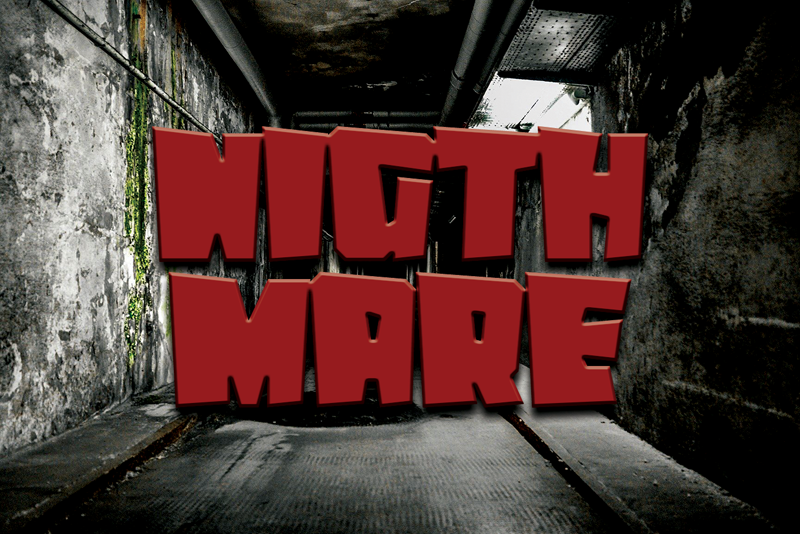
Preview and download Night Mare Font. Created by Erik Luluk in Fancy Cartoon styles with Free for personal use license.
Night Mare is a chunky and playful display font, perfectly designed to take your projects to the highest levels! It is perfectly suitable for book titles, movies, magazines, apparel designs, and more! Attention : Night Mare handwriting Font is prohibited to use this font for commercial purposes or for profit without the permission of the author/admin, without being known to use this font without permission, will be subject to sanctions 5x the specified price. This font is used only for demos (Demo license) If you want to use this font for commercial use please contact email: erikluluk0@gmail.com or click the link below: https://www.creativefabrica.com/product/night-mare-4/ref/745146/ If you want to see more other fonts, please click:https://www.creativefabrica.com/designer/erik-studio/ref/745146/ Any donations are very appreciated. Paypal account for donation: https://paypal.me/eriksupriyant thanks. |